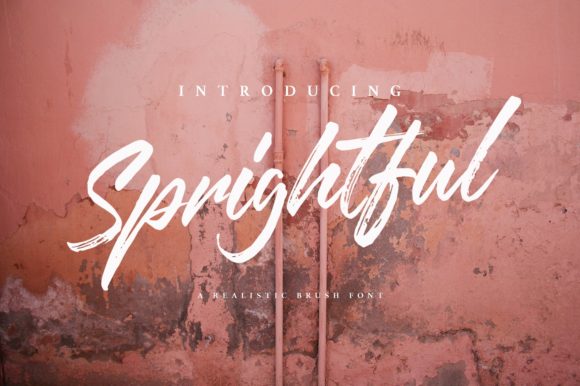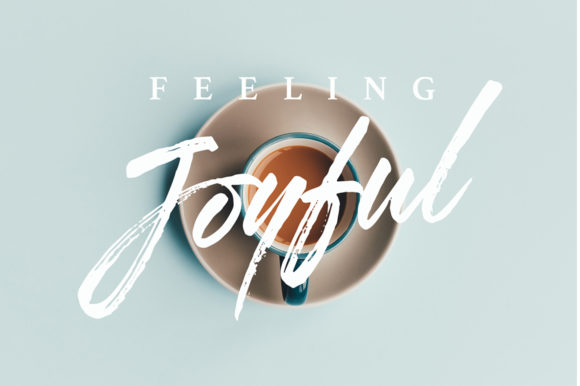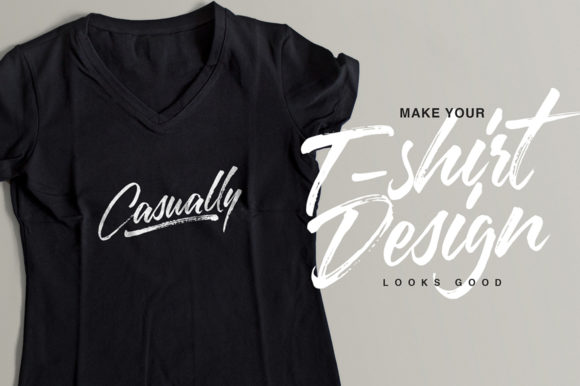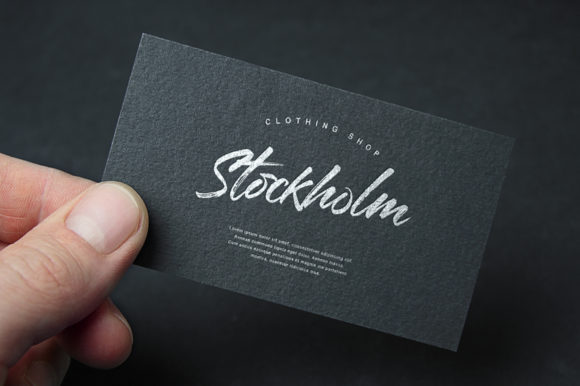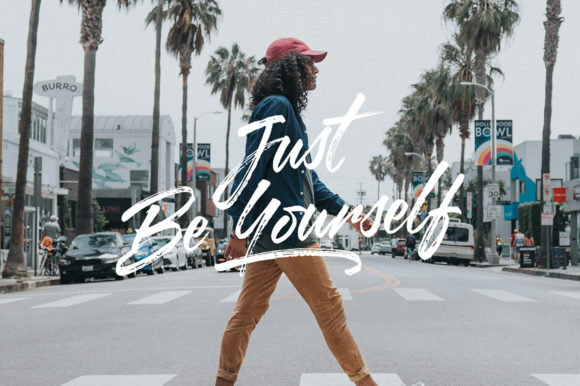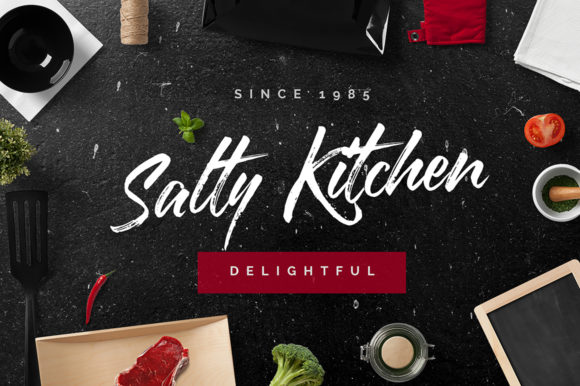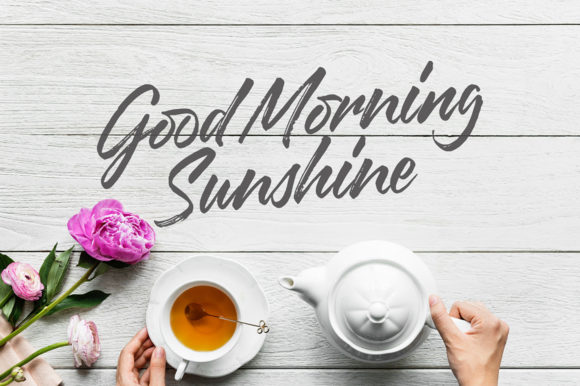
HomeScript FontsSprightful Font Script Fonts Sprightful Font FacebookXPinterestWhatsApp Sprightful Font Poster 2 Sprightful Font Poster 3 Sprightful Font Poster 4 Sprightful Font Poster 5 Sprightful Font Poster 6 Sprightful Font Poster 7 About Sprightful Font Sprightful is a fun and contemporary script with a distinctly urban edge. DOWNLOAD NOW People also explored Human Savior Font Yesterday Font Sabler Titling Zonnie Floral Font Peace Love Halloween Font Quefira Vivabotega Font Kamalika Anotesla Font 322 0 TagsSprightful Font Previous articleJoyful Script FontNext articleColatin Script Font LEAVE A REPLY Cancel reply Comment: Please enter your comment! Name:* Please enter your name here Email:* You have entered an incorrect email address! Please enter your email address here Website: Save my name, email, and website in this browser for the next time I comment. Personal Use Free Messy Personal Use Free Read more about this font Arnitta Callina Personal Use Free Read more about this font Beautiful Personal Use Free Read more about this font Farmgarden Personal Use Free Read more about this font BLOG Top 7 Google Fonts Alternatives for Faster and Privacy-Friendly Web Design (2025) Top 7 Google Fonts Alternatives for Faster and Privacy-Friendly Web Design (2025) When it comes to web typography, Google Fonts has long been the go-to... Using Fonts in Digital Marketing: Tips to Strengthen Your Brand Identity Top 10 Handwritten Fonts That Elevate Your Designs Best Fonts for YouTube Videos: Make Your Thumbnails Stand Out